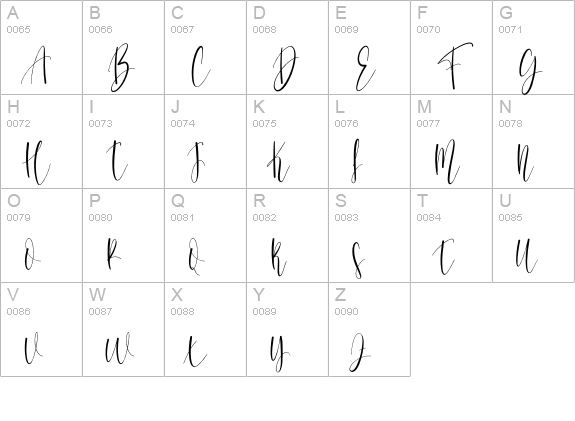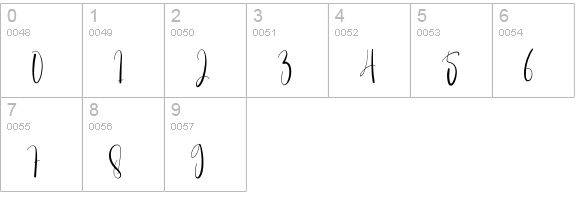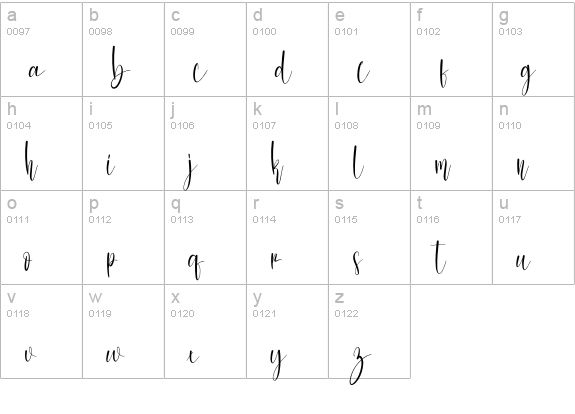
Tough Girl Font Details
Tough Girl is a free for personal use font in the Script > Handwritten category, designed by scratchones. It has been downloaded 3 times and is available for Windows, Mac and Linux.
Introducing Tough Girl font, a bold and dynamic typeface that exudes strength and confidence. This font is perfect for making a powerful statement in your designs, whether it's for posters, logos, or branding materials. With its sharp edges and sleek lines, Tough Girl font commands attention and leaves a lasting impression.
What sets Tough Girl font apart is its versatility - it can be used for both modern and edgy designs as well as more classic and timeless layouts. Its unique character adds a touch of attitude and personality to any project.